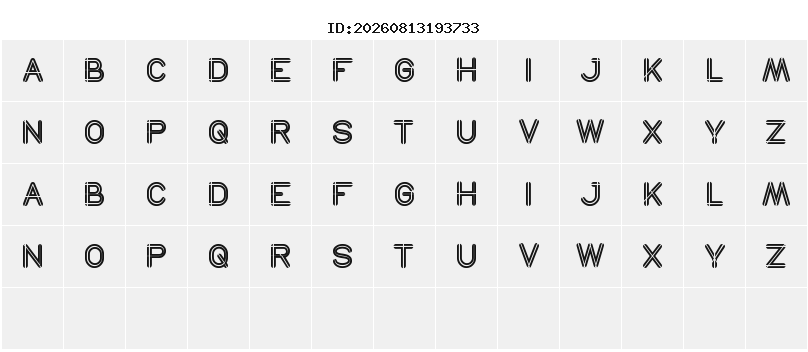
• Font Name: so this is it
About so this is it.ttf
so this is it.ttf is a modern, elegant sans-serif font designed for ultimate readability and visual harmony. Perfect for branding, headlines, web design, and print materials.